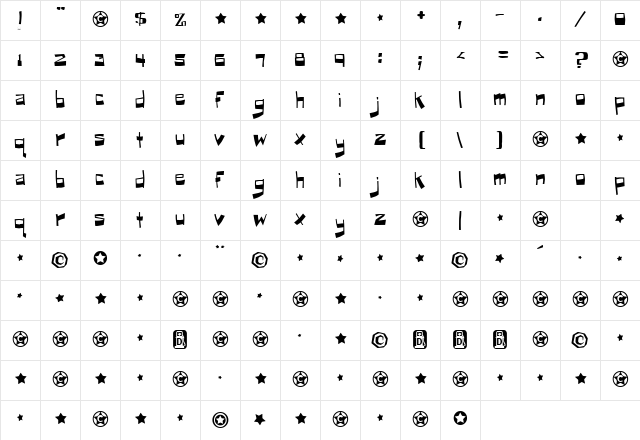
Puckfont Regular Free Font
Puckfont Regular
Design Context for Puckfont
Puckfont is a composed and adaptable typeface that performs quietly and consistently across a wide range of design contexts.